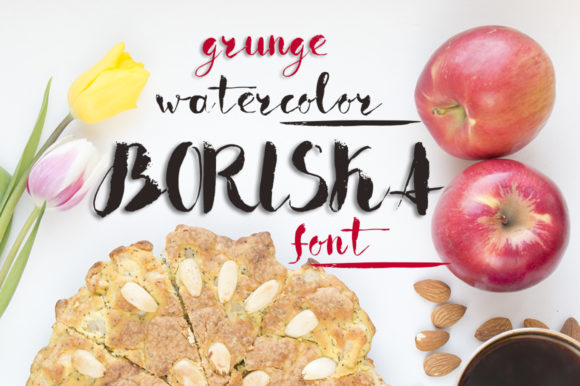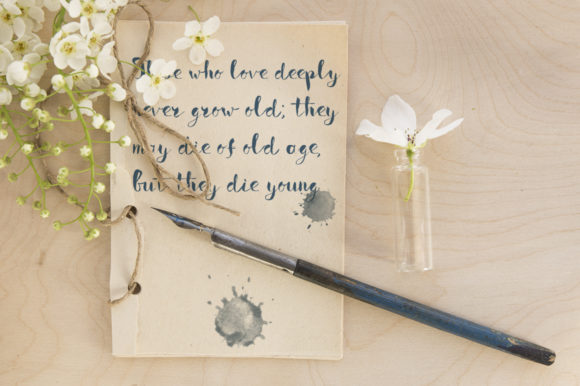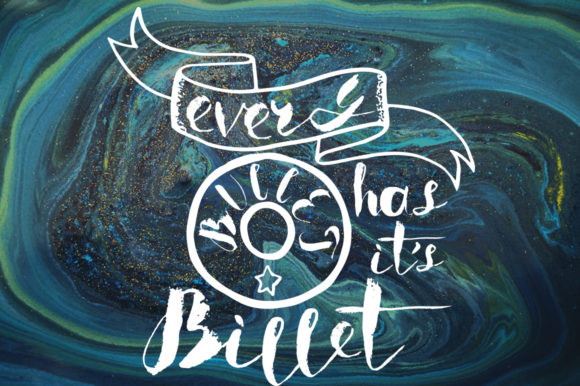
Boriska Font
About Boriska Font
Boriska is a cool and rough textured handwritten font. It is defined by smooth curves and is perfect for fashion branding or editorial designs. Add it confidently to your projects, and you will love the results.